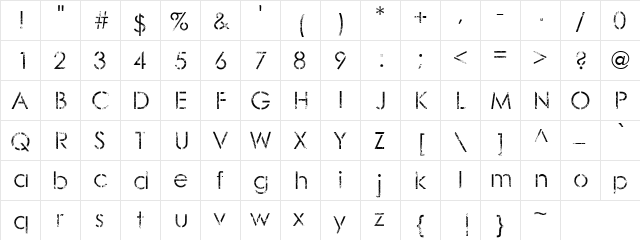
Go Gothic Grunge Regular
| Foundry | Go Media Inc. |
| Designer | William A. Beachy |
Design Context for Go Gothic Grunge Typeface
Go Gothic Grunge embraces imperfection — its rough, textured character adds raw authenticity to designs that want to feel lived-in and unconventional.
Suited to punk-influenced zines, underground music branding, streetwear, and raw, anti-corporate design.